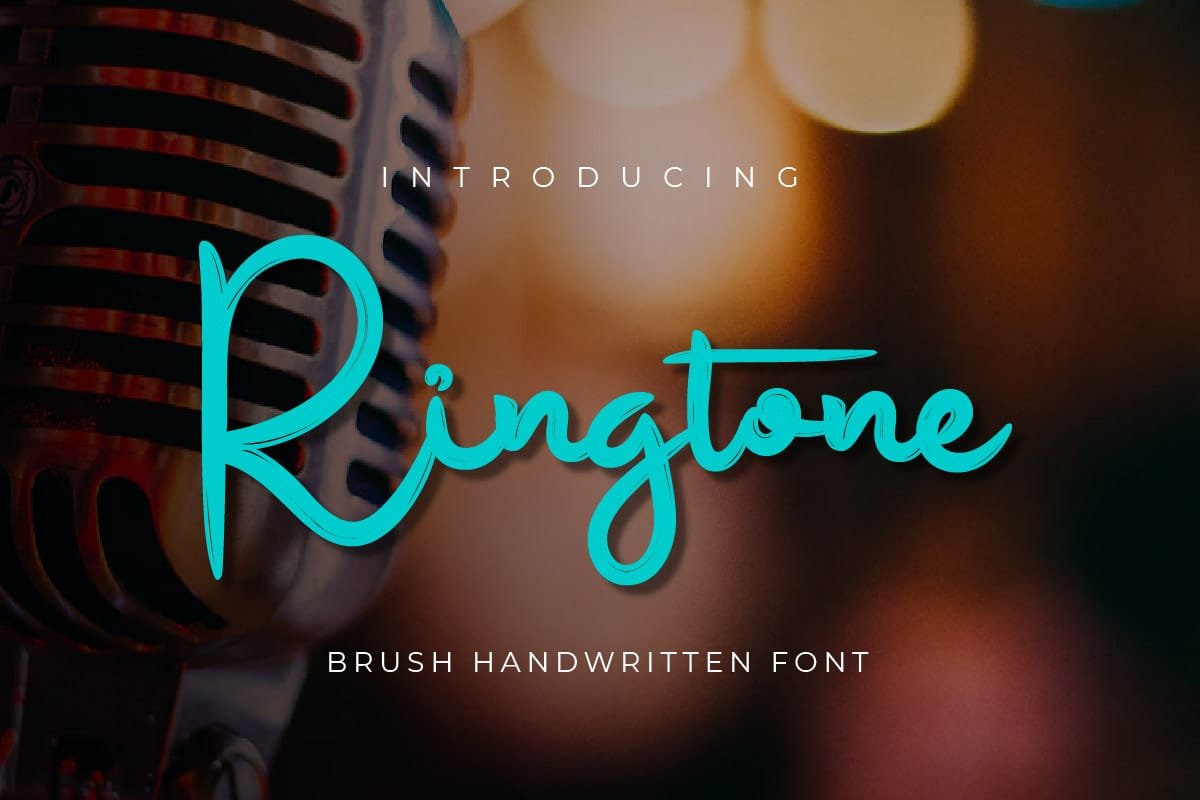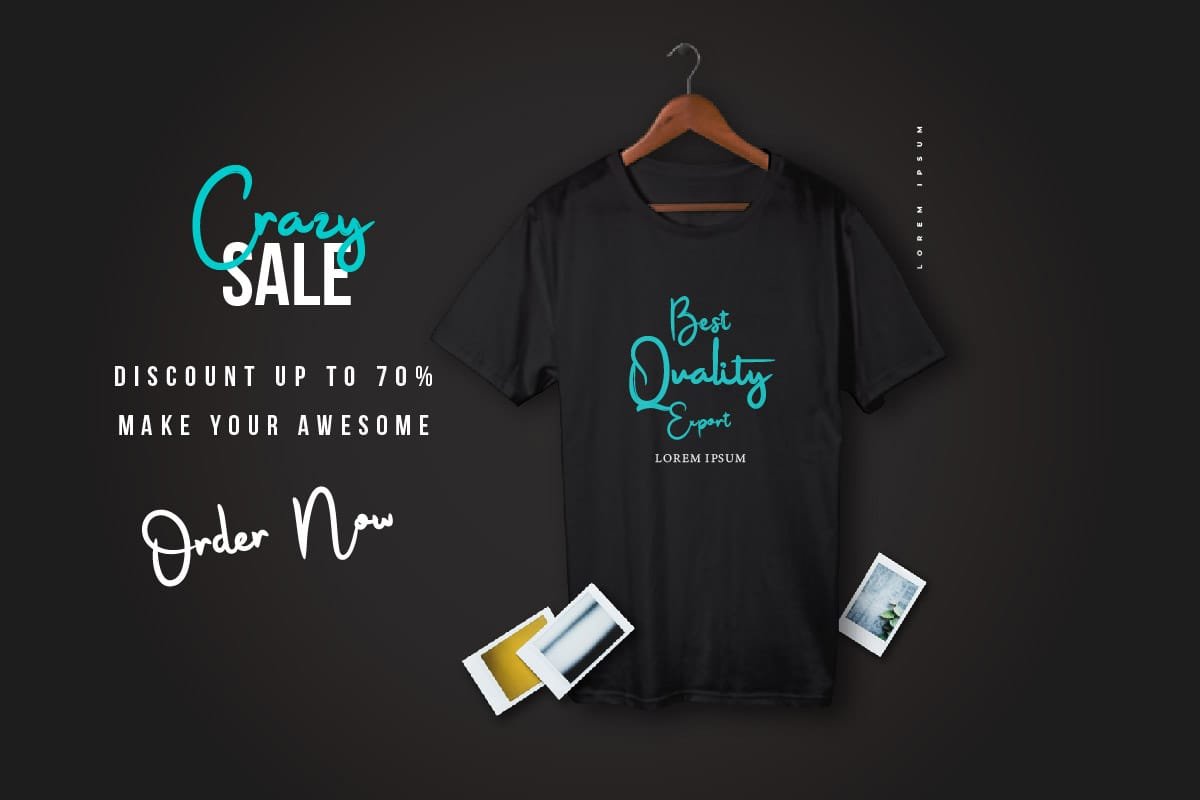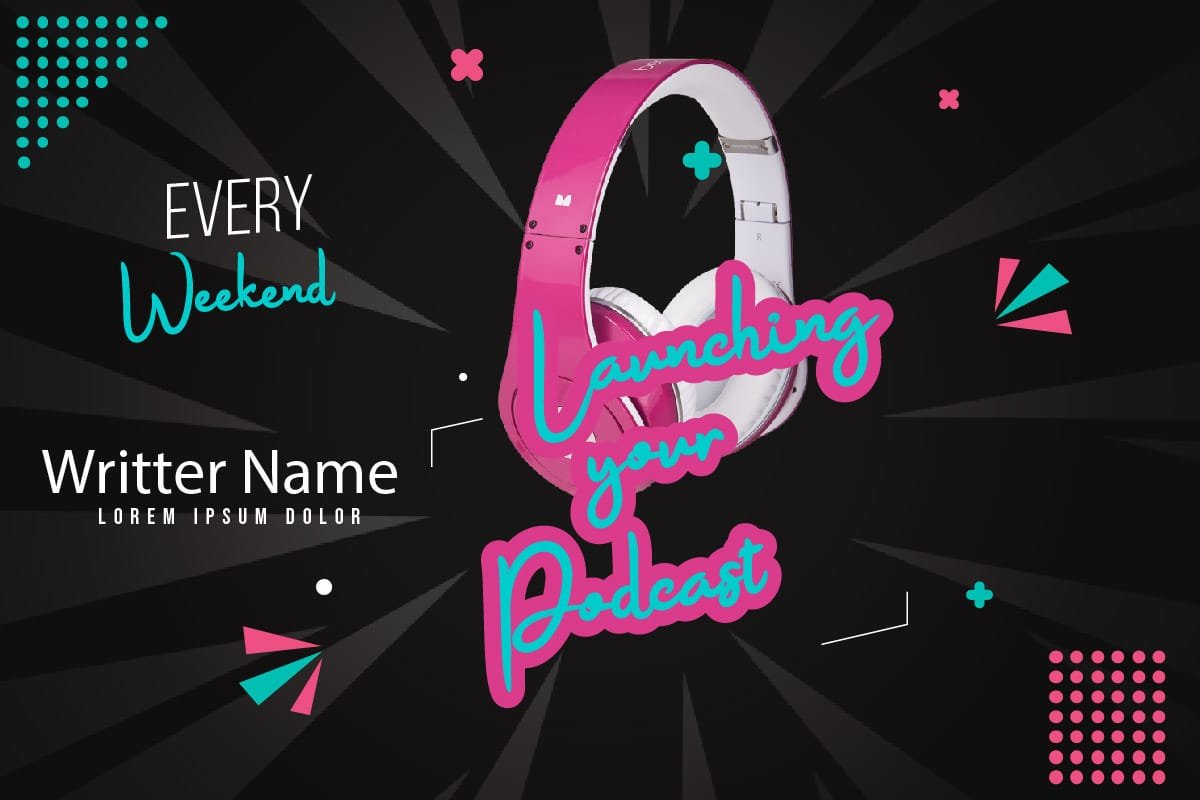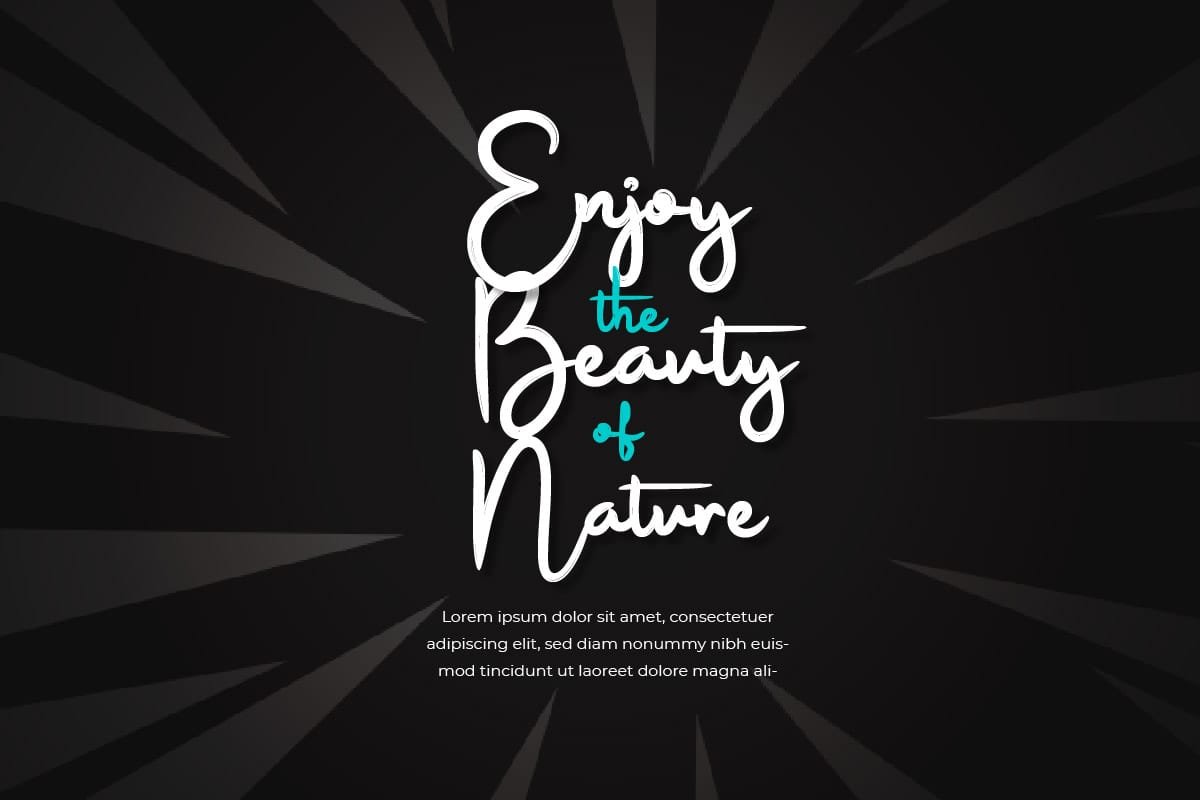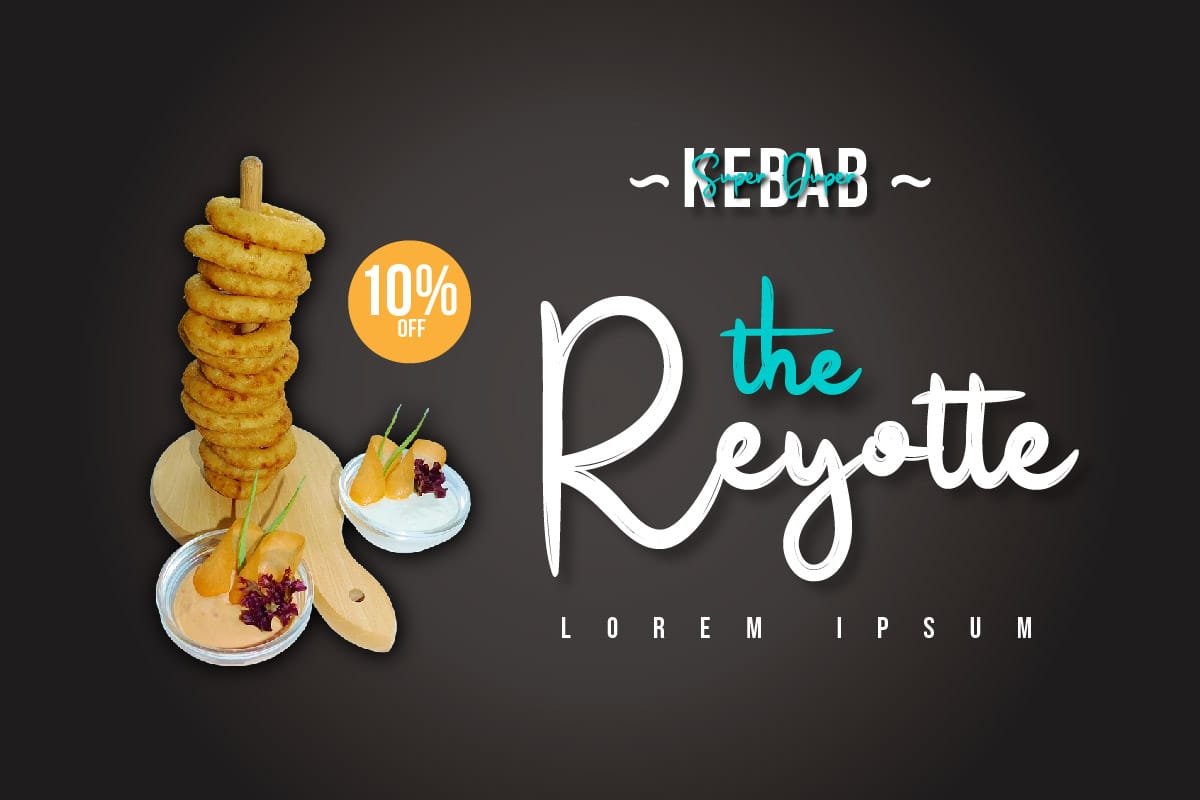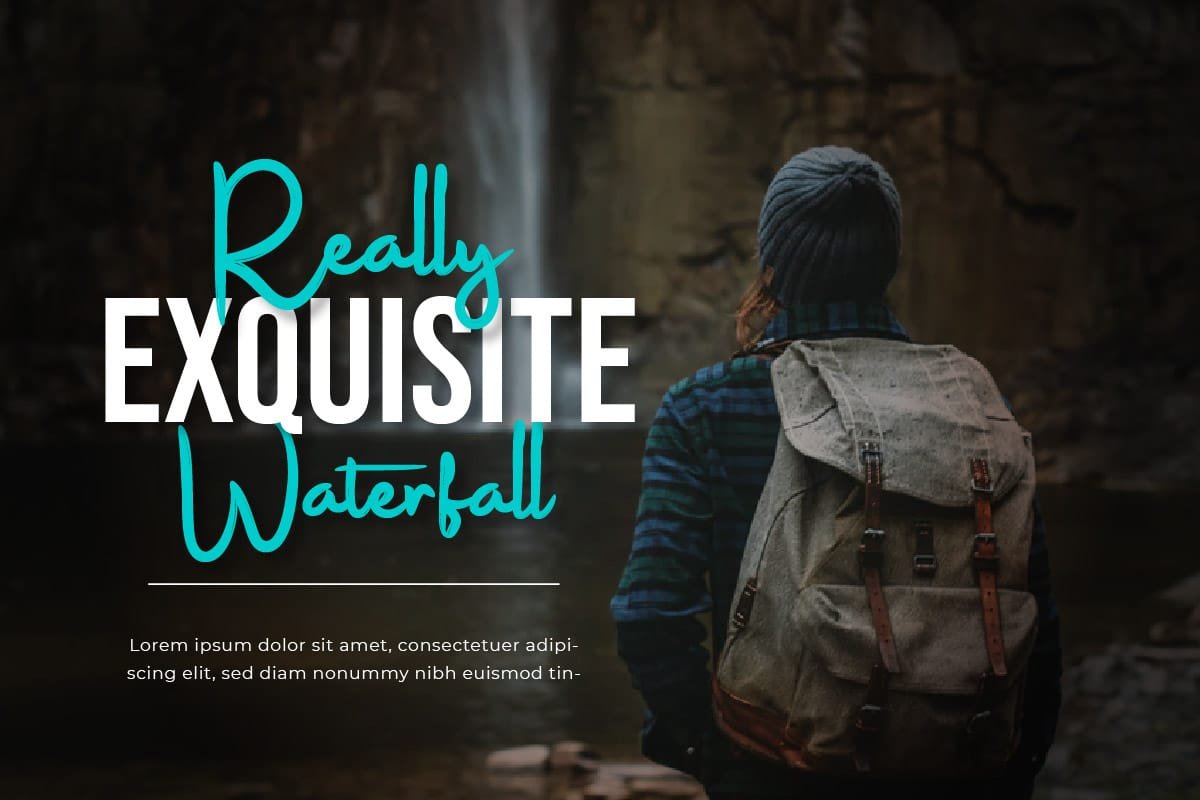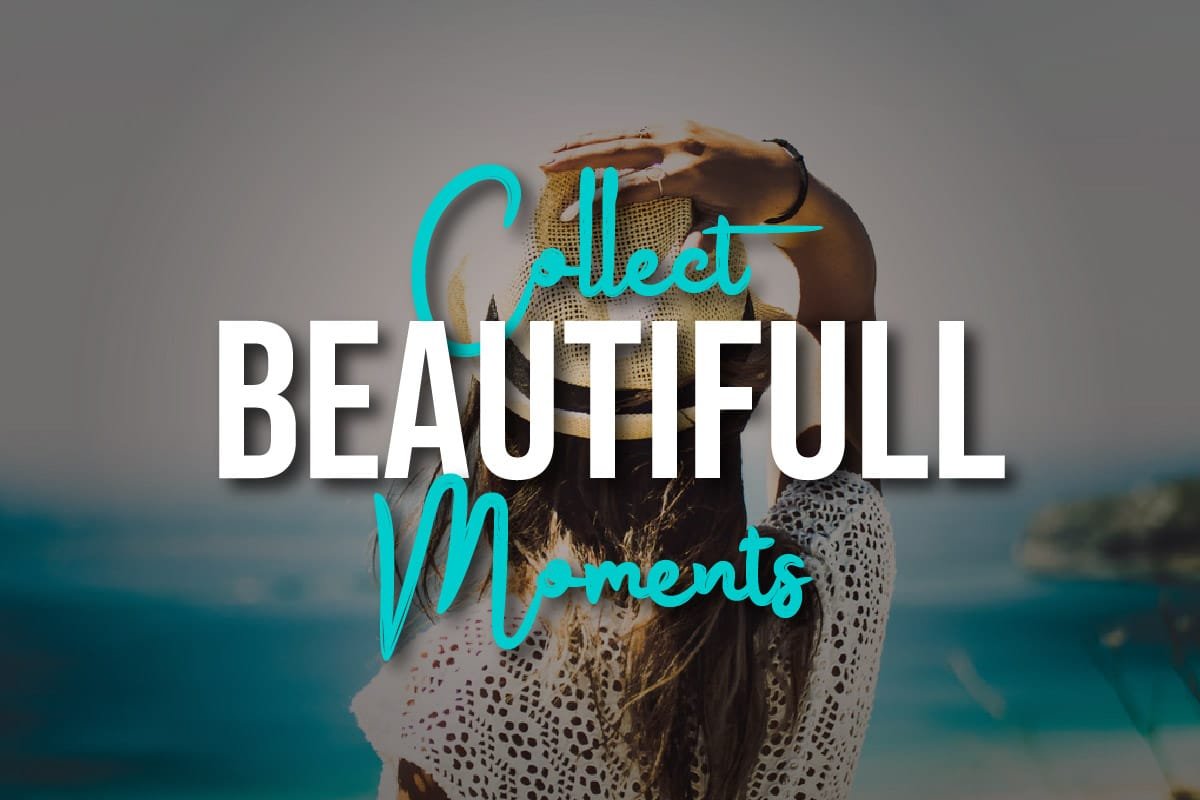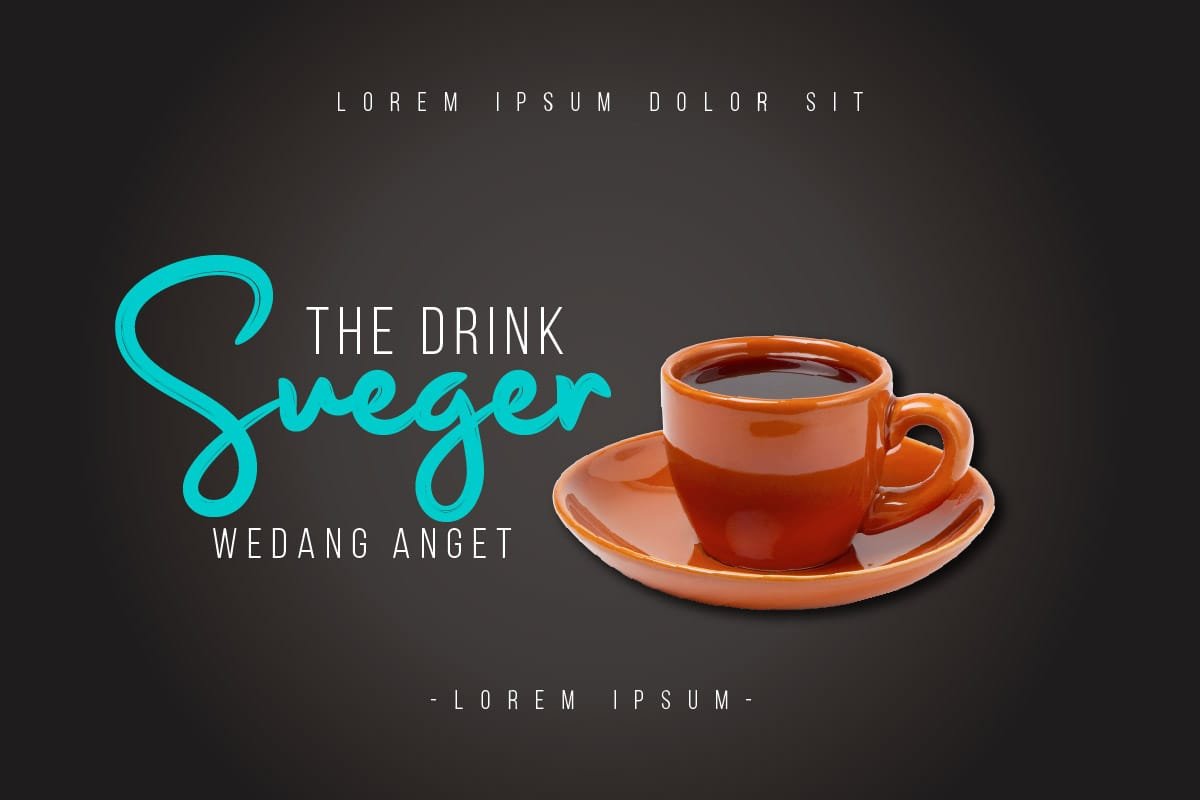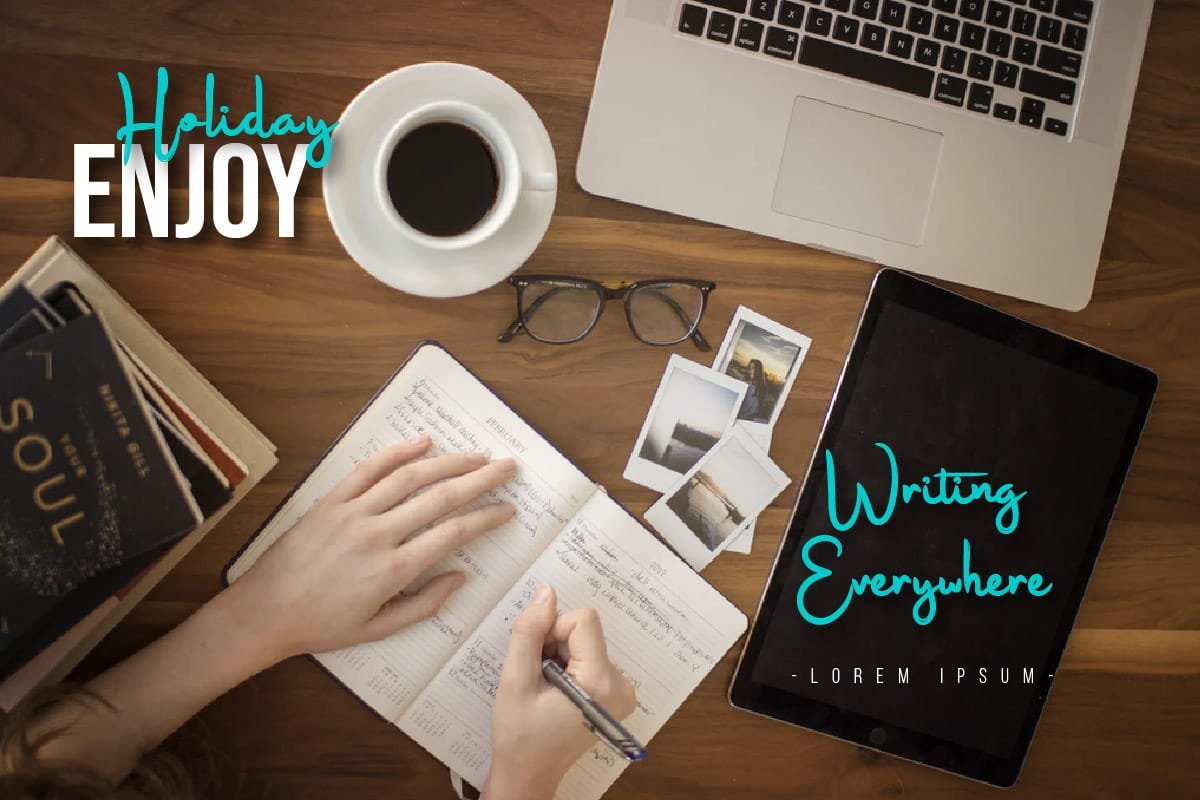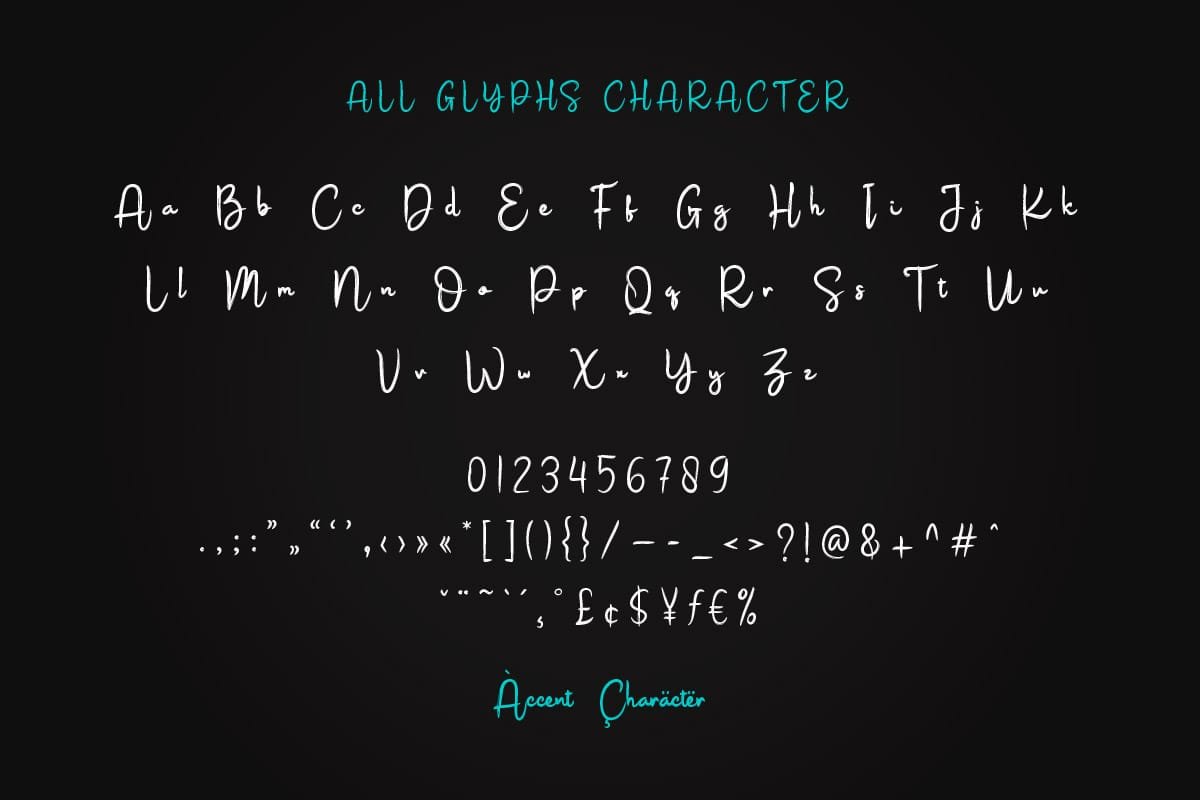
Set the tone for your designs with Ringtone – Brush Handwritten Font, the font that’s as catchy as your favorite melody. With its playful curls and rhythmic design, Ringtone adds a touch of fun and vibrancy to any project. Perfect for creating lively branding, upbeat event posters, or energetic social media graphics, Ringtone ensures that your message resonates with your audience. With Ringtone, every design becomes a symphony of creativity, spreading joy and positivity wherever it goes. Get ready to create designs that sing with Ringtone – the font that’s music to your eyes!